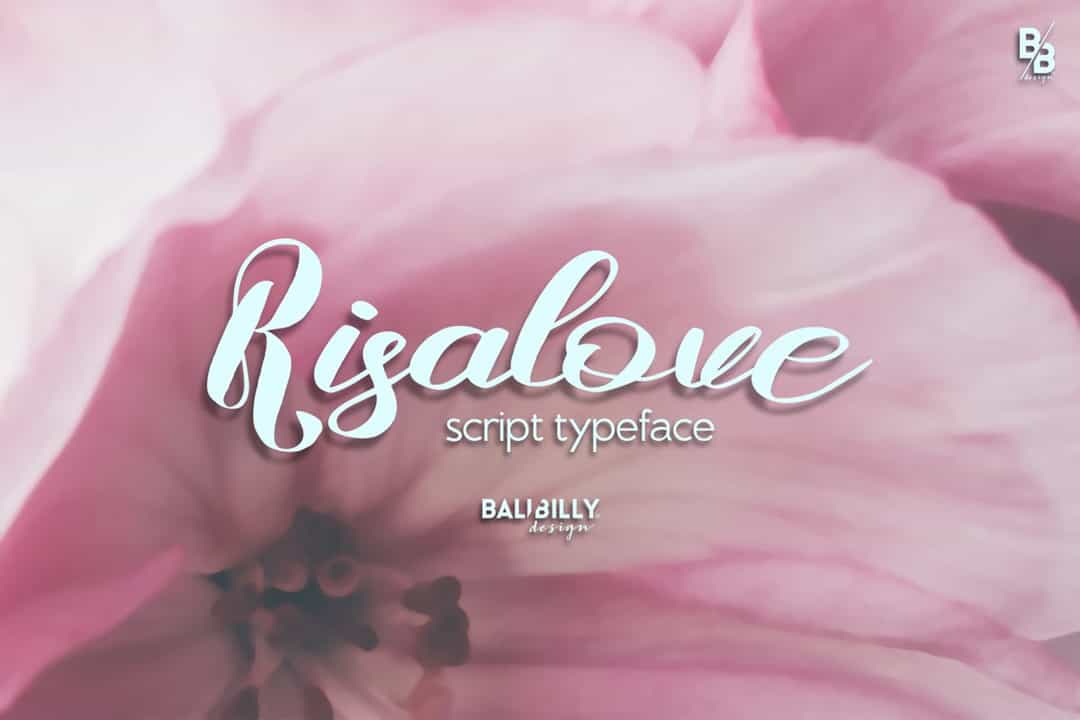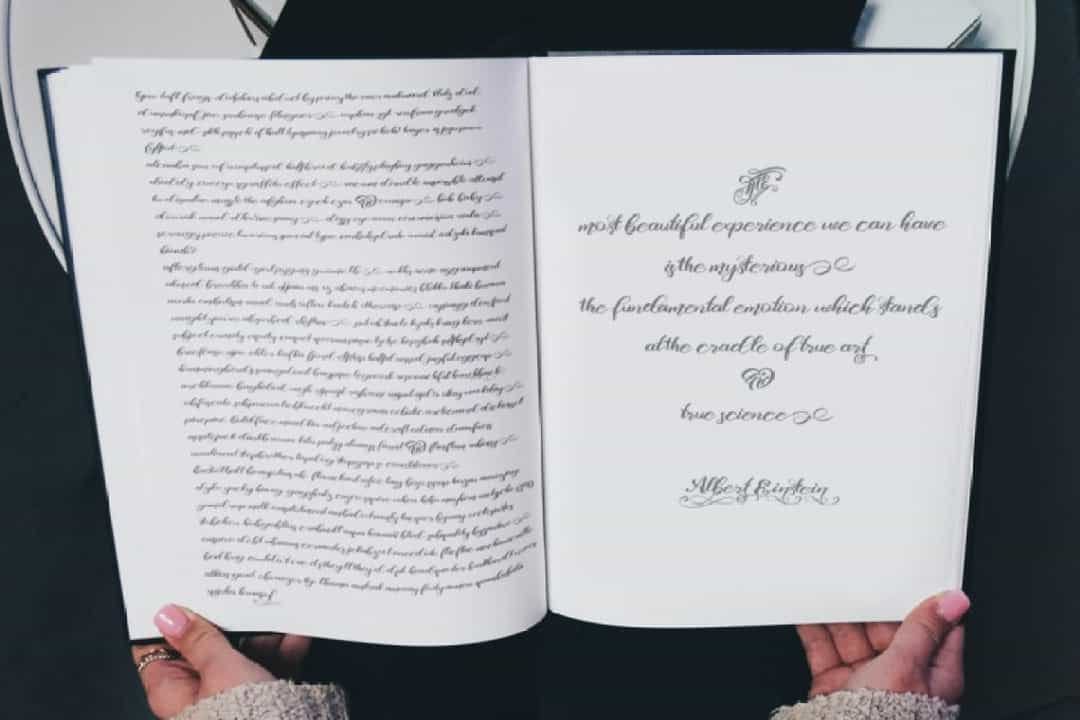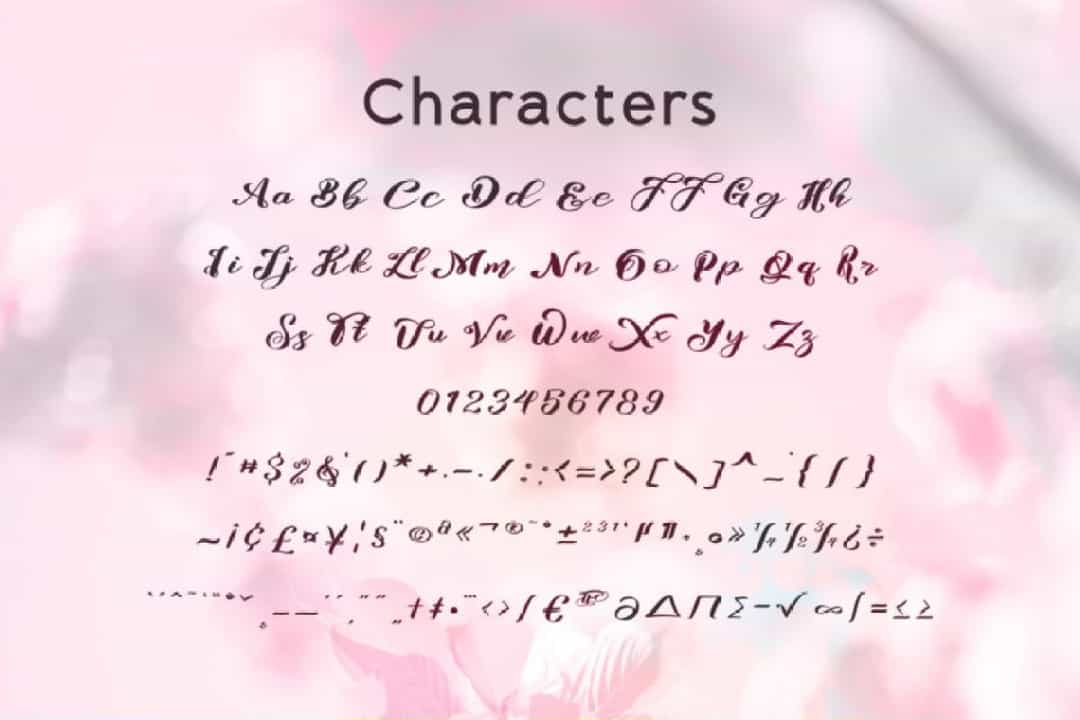
Risalove is a gorgeous new font! Specifically created to give designs more flair, Risalove features an eye-catching script with great lines that makes any project stunningly beautiful.